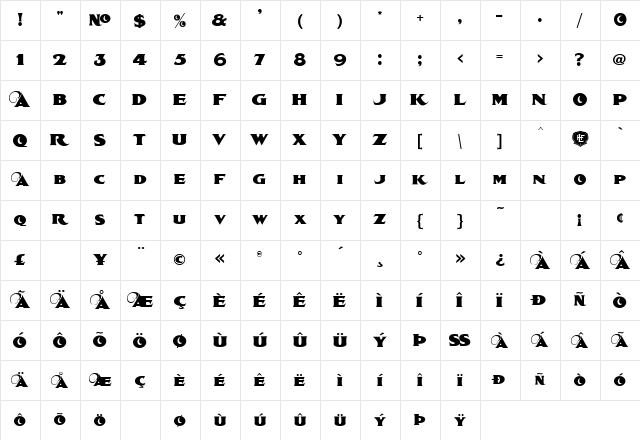
Complete LHF Spurred Egyptian Regular glyph index. Displaying only characters natively supported by LHF Spurred Egyptian Regular font.
LHF Spurred Egyptian features prominent, blocky serifs that give it a confident, grounded presence - equally at home in editorial settings and bold branding work.
Pro Tip: Use LHF Spurred Egyptian for headlines and subheadings where its slab serifs can make an impression. It also holds up well in mid-size body copy thanks to its sturdy construction.